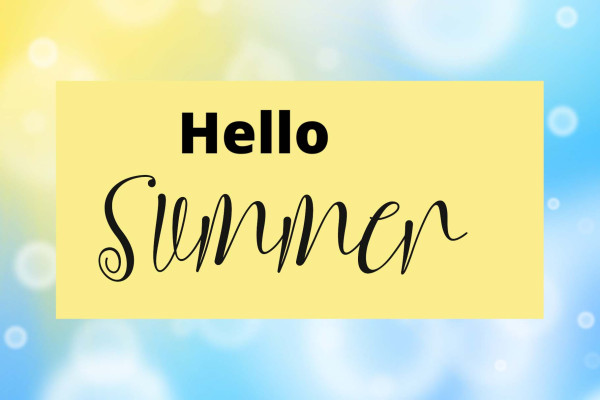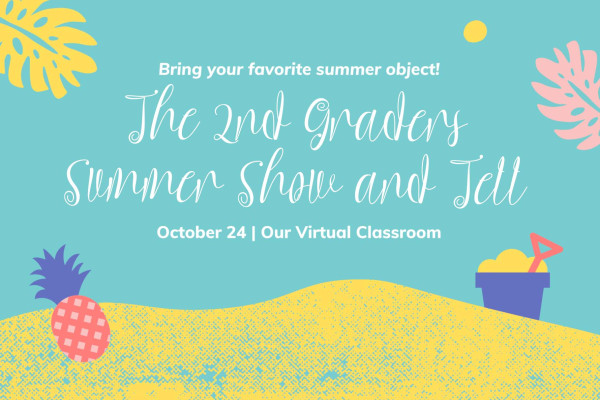
Summer Sugar Font
Summer Sugar Font is a unique, curly handwritten font. This font is equipped with uppercase, lowercase, numerals, punctuation, and multilingual support. It is suitable for summer, graduation, Christmas, the 4th of July, memorials, banners, branding, stickers, ornaments, and others.